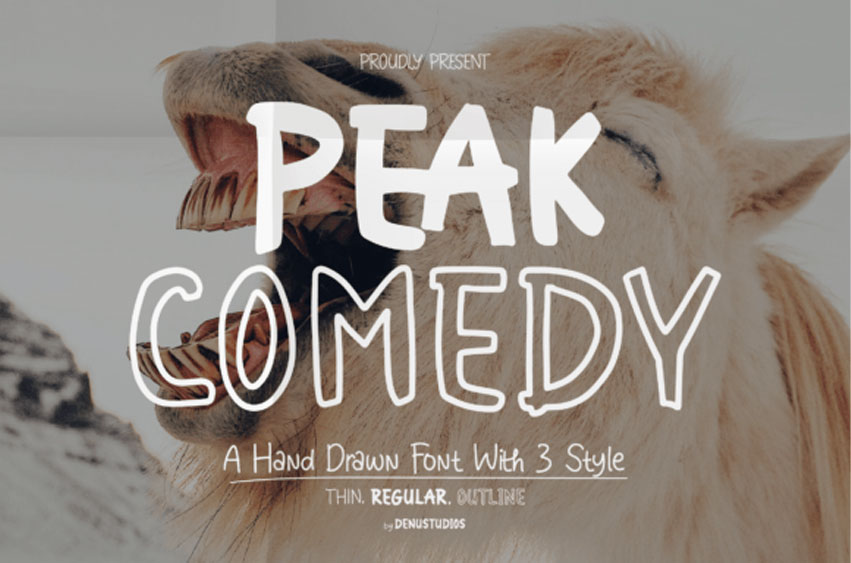
Peak Comedy Font
Peak Comedy Font is a fun, hand-drawn font with a playful and quirky style.
Its bold, uneven letters make it perfect for jokes, memes, and anything that needs a cheerful, light-hearted look!